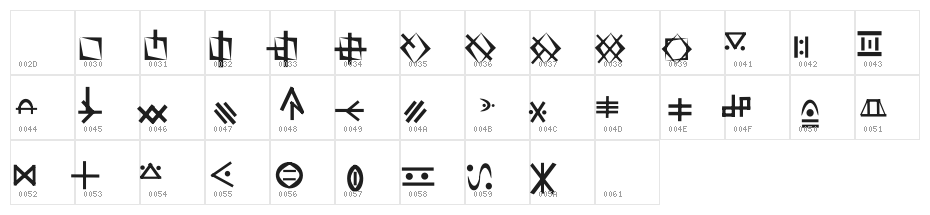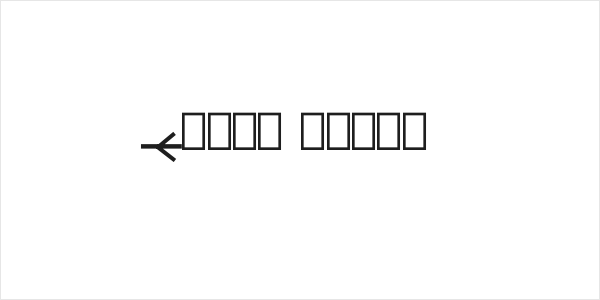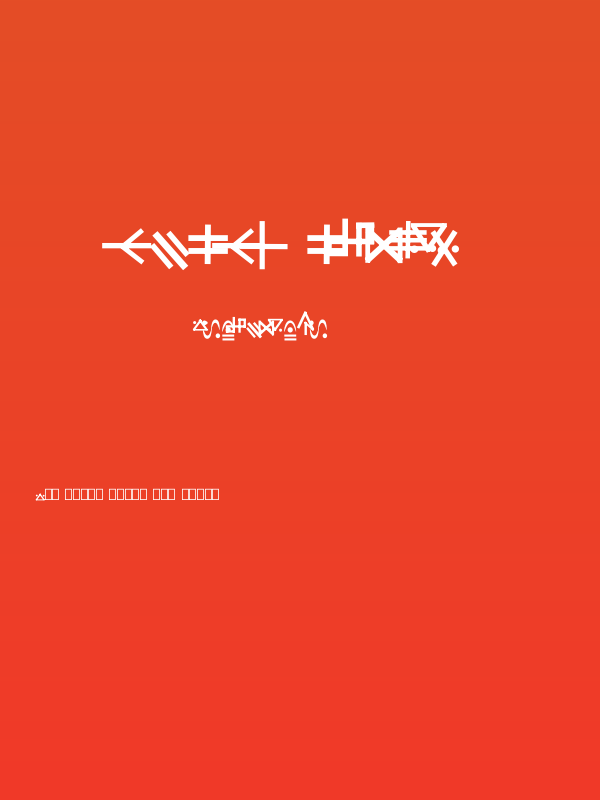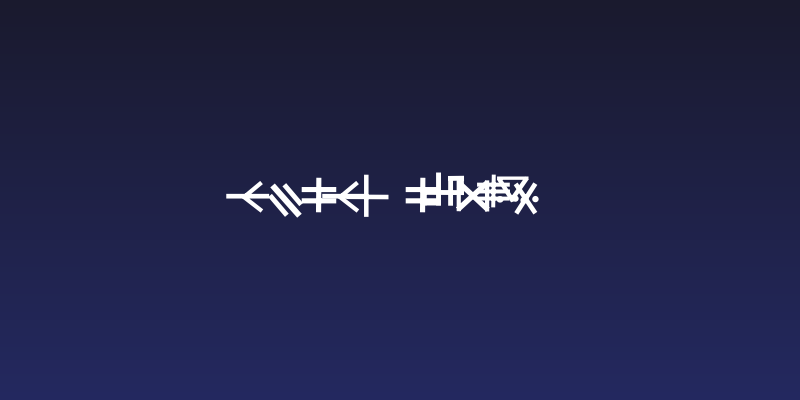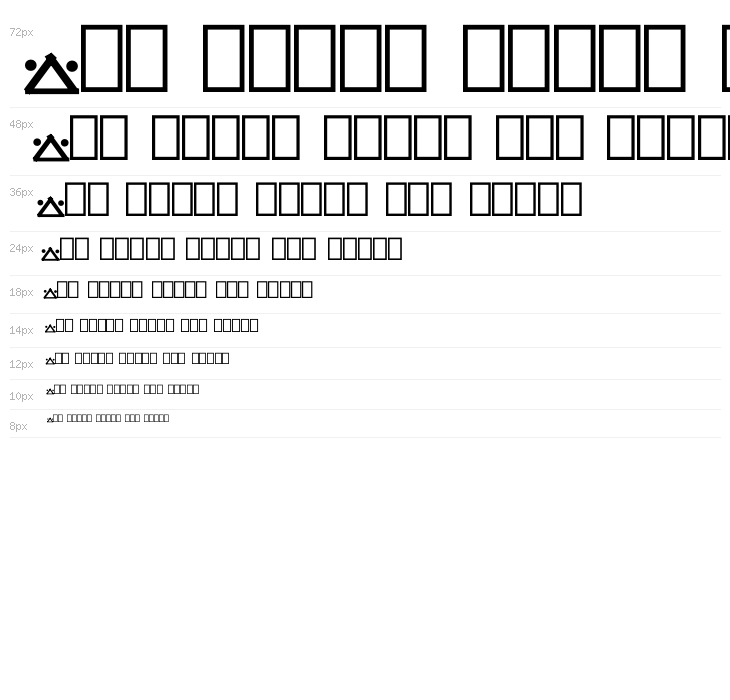
Ignis normal Font
Ignis normal Description
Highly abstract, geometric, and decorative font with intersecting lines, shapes, and symbols replacing traditional letterforms, creating a cryptic and artistic appearance.
| Overall Style | Decorative, Abstract, Futuristic |
| Use Case | Logos, Headlines, Posters, Artistic projects |
| Proposed Projects | Fantasy or sci-fi titles, game interfaces, posters, album covers, or any project needing a mysterious or coded visual language. |